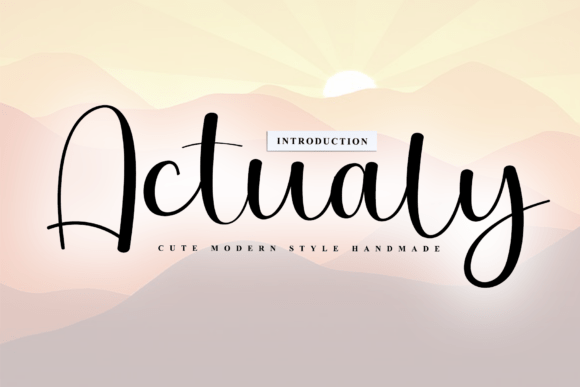
As a designer, there’s no feeling quite like the rush of discovering a font that perfectly captures the essence of your latest project. It’s a moment of serendipity, when the words on the page suddenly come alive with a sense of style and sophistication. For me, that moment often comes when I’m working on a branding project for a boutique food or lifestyle brand.
That’s where Actualy Font comes in – a sophisticated script font that brings a touch of artisanal artistry to any project. With its sweeping, looping ascenders and warm, organic aesthetic, Actualy Font is the perfect choice for designers looking to create a premium, upscale look. Whether you’re working on a food label, a lifestyle marketing campaign, or a creative editorial title, Actualy Font is sure to impress.
Key Features of “Actually Font”
- Unique Characteristics: The font features a unique blend of modern and classic design elements, with a focus on legibility and readability.
Actualy Font Review
As a designer, I’ve had the chance to work with Actualy Font, and I must say it’s been an interesting experience. There are some great things about it, and some not-so-great things. Let’s dive in!
- Unique Character: Actualy Font has a distinctive character that can add a touch of personality to your designs.
- High-Quality Rasterization: The font renders well in various sizes and resolutions, making it suitable for digital use.
- Excellent for Display Use: Actualy Font is perfect for titles, headings, and other display text where you want to make a statement.
- Limited Font Size Range: Actualy Font may not be the best choice for body text or very small font sizes.
- Not Ideal for Large Text Blocks: Due to its unique character, Actualy Font can become overwhelming when used extensively.
Overall, Actualy Font is a great addition to your design toolkit, but it’s essential to use it judiciously. It’s perfect for titles, headings, and other display text where you want to add a touch of personality. Just be mindful of its limitations, and you’ll be golden.
Tips for Getting the Most Out of Actualy Font
Experiment with different font sizes, colors, and styles to create visually appealing typography.
Use Actualy Font to create bold headings and titles that stand out from the rest of the content.
Combine Actualy Font with other design elements, such as images and graphics, to create a cohesive and engaging visual identity.
Alternatives to Actualy Font
Fontin is a sans-serif font designed by Robert Slimbach in 1989. It’s a versatile font suitable for body text, headings, and titles. Fontin is known for its legibility and clarity, making it an excellent choice for print and digital materials. It’s a good alternative to Actualy Font when you need a clean and professional look.
Comparison: Fontin has a more classic feel compared to Actualy Font’s modern look. While Actualy Font is more suitable for digital applications, Fontin is a better choice for print materials due to its high legibility.
Open Sans is a popular sans-serif font designed by Steve Matteson in 2010. It’s a highly legible font suitable for body text, headings, and titles. Open Sans is a great choice for digital materials, including websites, apps, and documents. It’s a good alternative to Actualy Font when you need a modern and clean look.
What is the recommended font size for Actualy Font?
The recommended font size for Actualy Font is between 12pt and 24pt. However, this can be adjusted according to your design needs and preferences. It’s also worth noting that Actualy Font is designed to be highly legible at various font sizes, making it suitable for a wide range of applications.